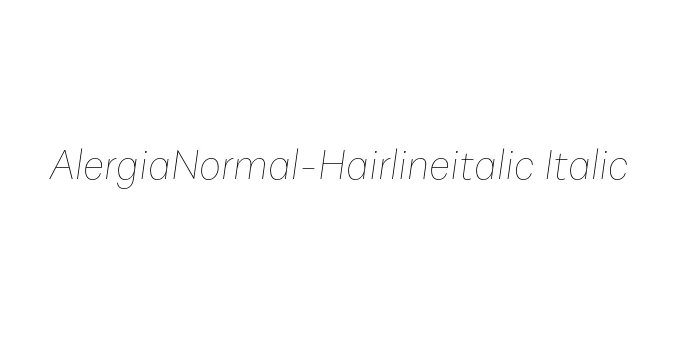
AlergiaNormal-Hairlineitalic Italic
Designed by Mateusz Machalski
Alergia Normal Hairline Italic is a distinguished member of the extensive Alergia type system, which was meticulously crafted to offer a blend of geometric structure and humanist warmth. This specific style represents the pinnacle of elegance within the family, featuring razor-thin strokes that demand high-resolution environments to fully appreciate their precision. Designed by the acclaimed Mateusz Machalski, the font family explores the intersection between classic grotesques and modern display faces, resulting in a unique aesthetic that is both technical and organic.
The Hairline Italic weight is particularly notable for its sophisticated slant and rhythmic flow, making it an excellent choice for designers looking to convey a sense of luxury and avant-garde style. Whether used in high-end fashion editorials or minimalist digital interfaces, its delicate form provides a striking contrast when paired with heavier weights or bold imagery. Its versatility is further enhanced by its refined character set, ensuring that it remains legible despite its extreme thinness, provided it is utilized at appropriate display sizes.
AlergiaNormal-Hairlineitalic Italic Best Uses
Perfect for high-end fashion logos, premium cosmetic packaging, and upscale identity systems.
Ideal for magazine headlines, pull quotes, and sophisticated mastheads in print and digital media.
Excellent for large-scale typography on minimalist websites where a delicate touch is needed.
Suited for exhibition titles and refined promotional materials for contemporary art institutions.